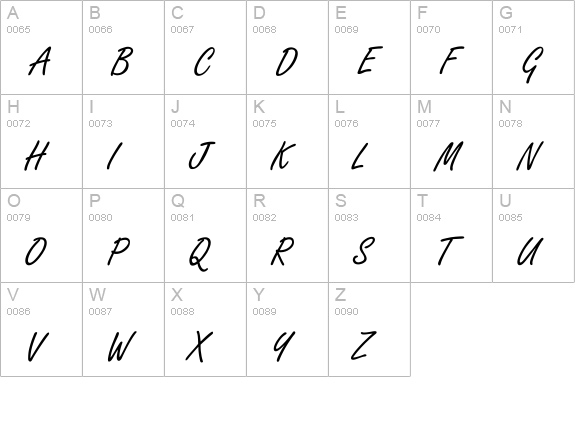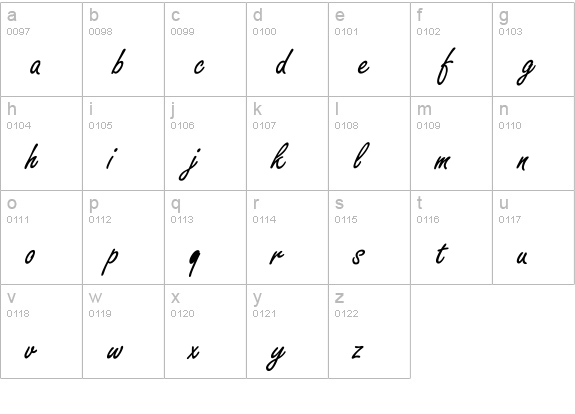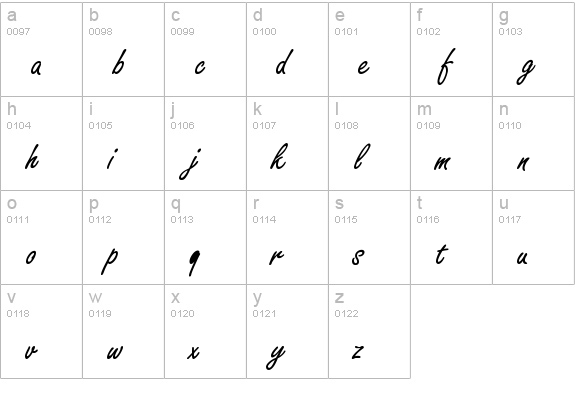
Freeport-Normal Font Details
Freeport-Normal is the standard, neutral variant in the Freeport typeface family \xE2\x80\x94 well suited to general body text, paragraphs, and standard typographic work.
The Freeport-Normal font is a versatile and modern typeface that exudes elegance and sophistication. Its sleek lines and balanced proportions make it perfect for a wide range of design projects, from branding to editorial design. With its clean and legible design, Freeport-Normal is suitable for both display and body text, ensuring readability in any context. What sets Freeport-Normal apart is its sense of freedom and creativity, allowing designers to express themselves without limitations. This font embodies a sense of liberation and artistic expression, making it a go-to choice for those looking to make a bold statement with their typography. Best of all, Freeport-Normal is freely available to download at FontsMarket.com, making it accessible to all designers looking to add a touch of sophistication to their projects. Whether you're working on a website, poster, or branding materials, Freeport-Normal is sure to elevate your design with its unique blend of style and freedom. Download it today and unleash your creativity with this stunning font.